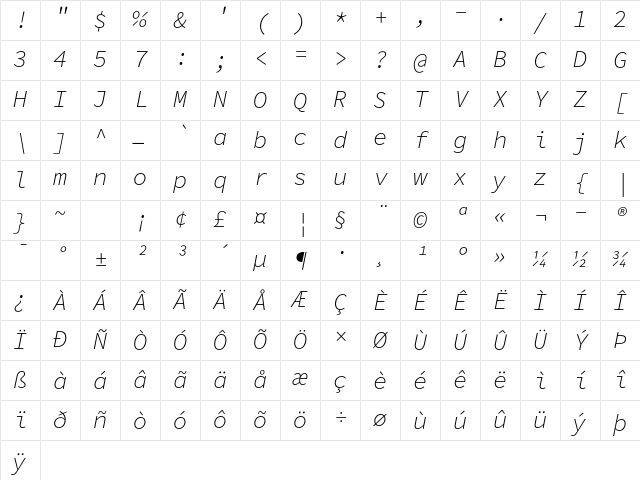
Hasklig Light Italic
Designer: Paul D. Hunt, Teo Tuominen
Complete Hasklig Light Italic glyph index. Displaying only characters natively supported by Hasklig Light Italic font.
Design Context for Hasklig Light
Hasklig Light is a composed and adaptable typeface that performs quietly and consistently across a wide range of design contexts. The slanted form adds forward momentum and visual energy. Its slender proportions lend an understated elegance to any composition.